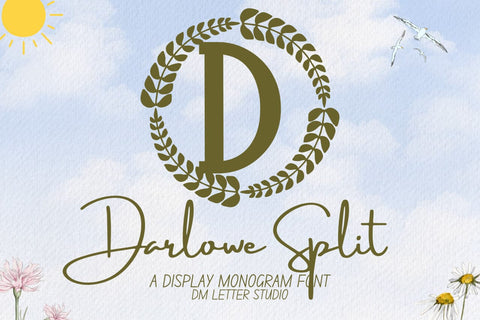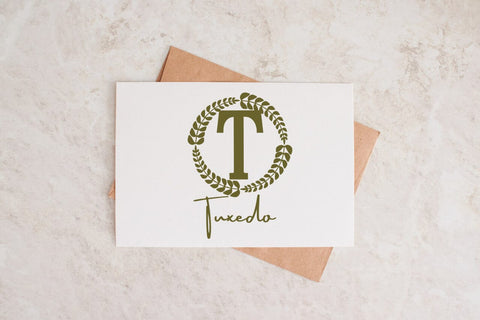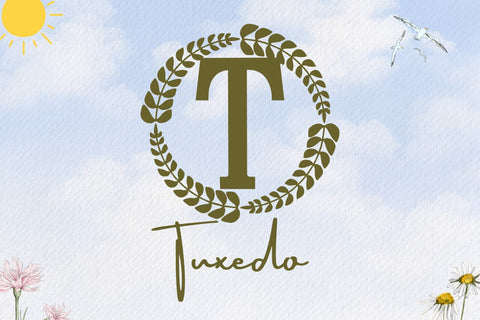
Darlowe Monogram Font
Meet Darlowe, the Monogram Font
Darlowe Monogram Font turns simple initials into poised, boutique-ready emblems. Strokes feel smooth and confident, while open counters keep tiny tags readable. Use it for wedding suites, boutique logos, keepsake gifts, and elegant packaging. In addition, Darlowe pairs beautifully with refined serifs and quiet humanist sans fonts, so layouts stay polished without extra work.
Where this monogram font shines
Set single, double, or triple initials for logos, seals, menus, and place cards. Then add laurel rings, oval borders, or fine rules to echo the calm geometry. Since proportions favor symmetry and clarity, centered compositions come together in minutes. As a result, your thumbnails pop on marketplaces and your listings feel consistent from invitations to signage. Darlowe also scales smoothly from jewelry cards to entry displays.
Design tips for Darlowe Monogram
Keep initials large and let white space breathe. Pair the headline monogram with a soft serif for body text or a clean sans for labels and dates. Add micro shadows, a thin inner stroke, or a delicate frame for depth. Because the forms feel airy and balanced, textured papers and metallic accents lift perceived value. However, keep copy short so the monogram remains the hero, especially on small favors and tags.
Select stylistic alternates for key letters
Curves tuned for foil, letterpress, engraving, laser, and clean vinyl cutting
Why creators choose Darlowe
You want elegance that reads at a glance and sells across many product types. Darlowe Monogram Font delivers steady clarity, quick layout, and a cohesive brand voice from invites to packaging and gifts.